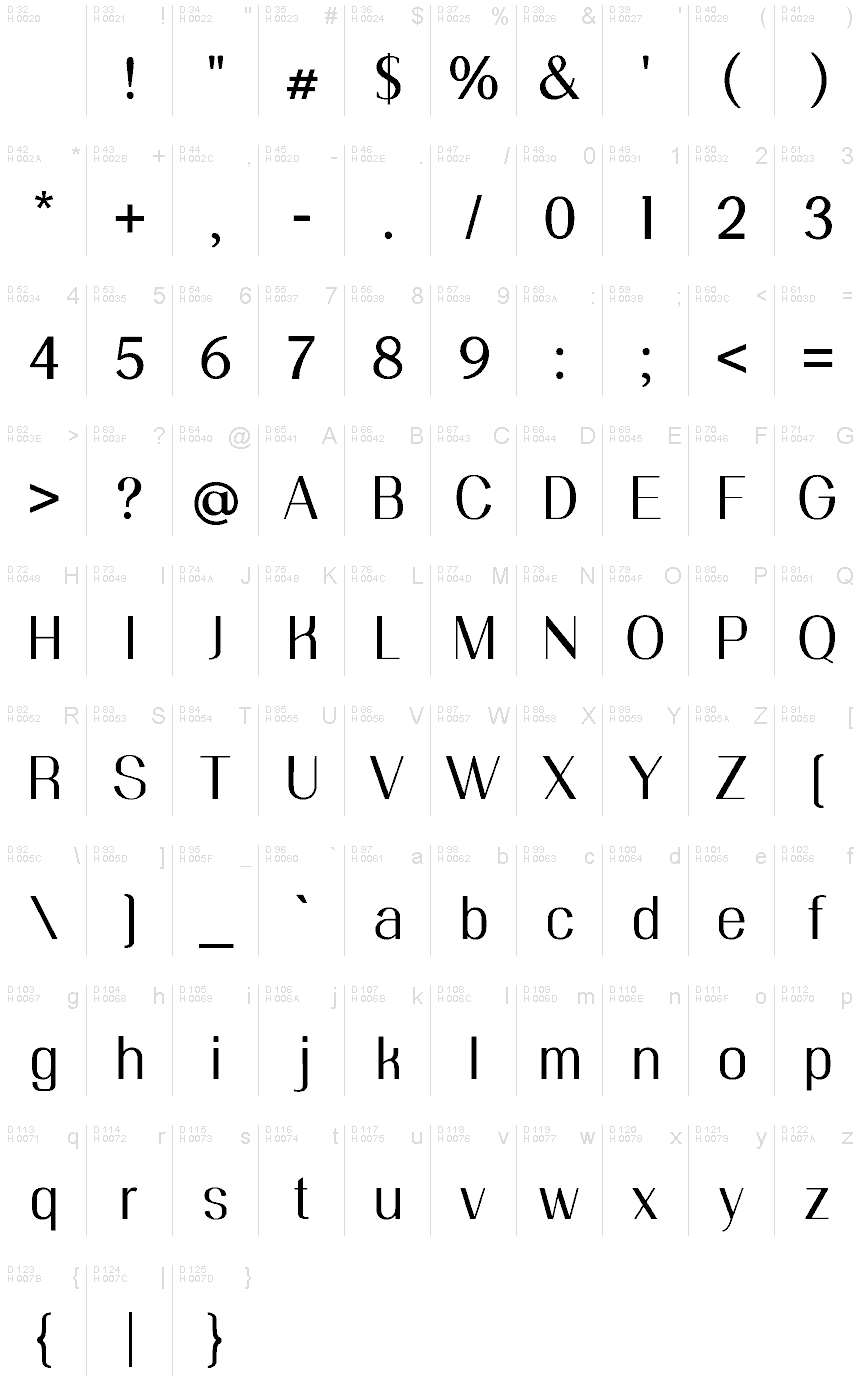
PLAYFUL RUNWAY Regular
Playful Runway font from UI Creative is a sans serif creation that combines elegance, style, and sophistication. The font is modern, fashion-oriented and stylish with a high-end aesthetic that will please the eye. Its minimalistic approach is perfect for simplification but not without keeping things interesting.
This free sans serif font works perfectly with magazines, invitations (wedding/birthday), social media posts (Pinterest/Instagram), luxury brand logos and products packaging/labeling. In addition to fashion products, it also applies to cosmetic ones such as makeup or any type of creams/lotion placed in bottles.